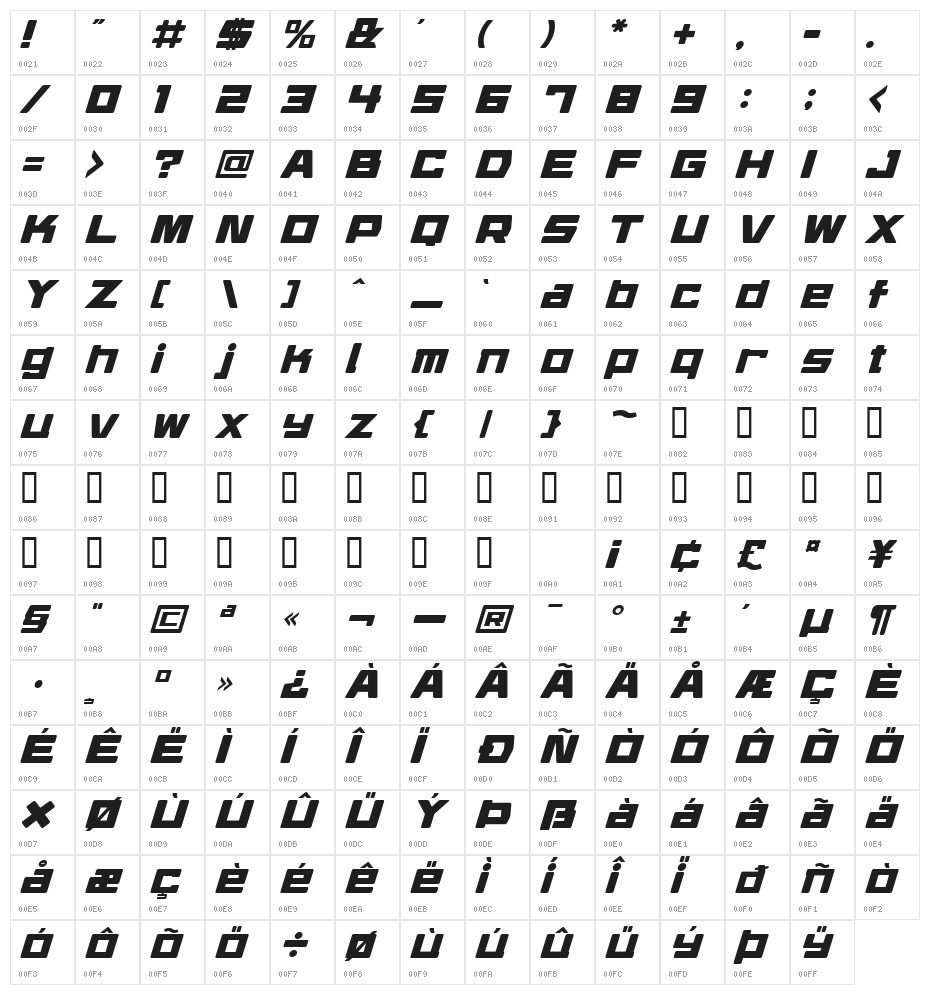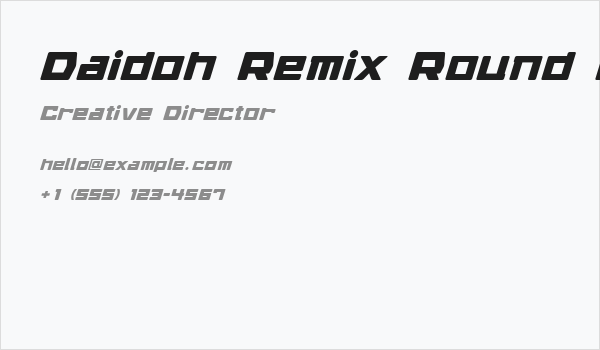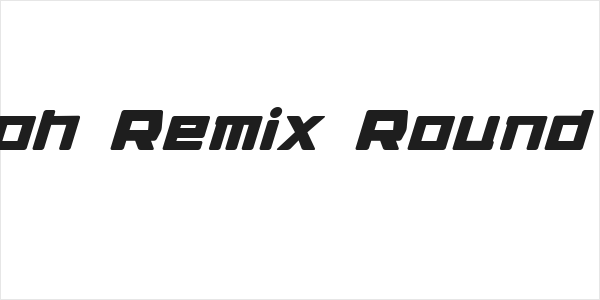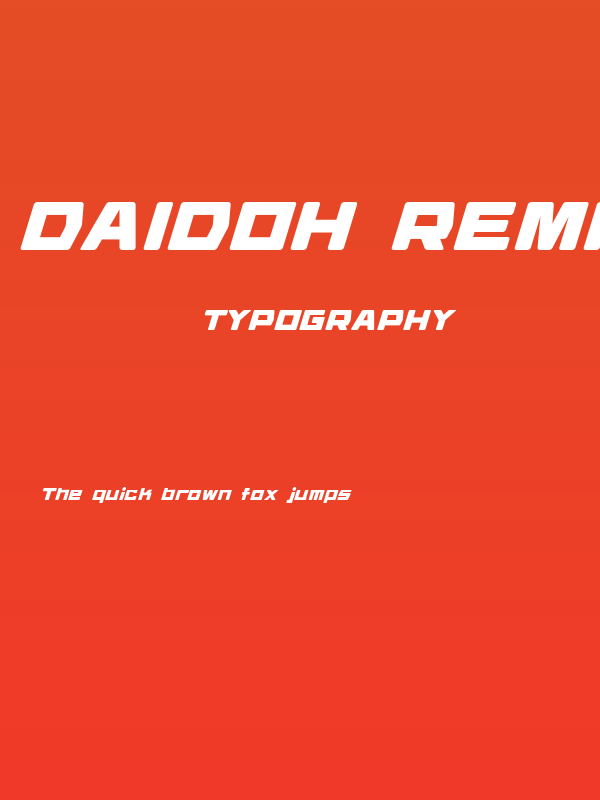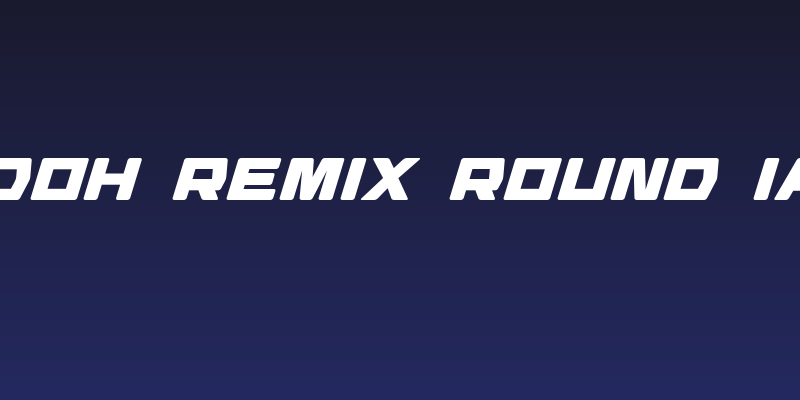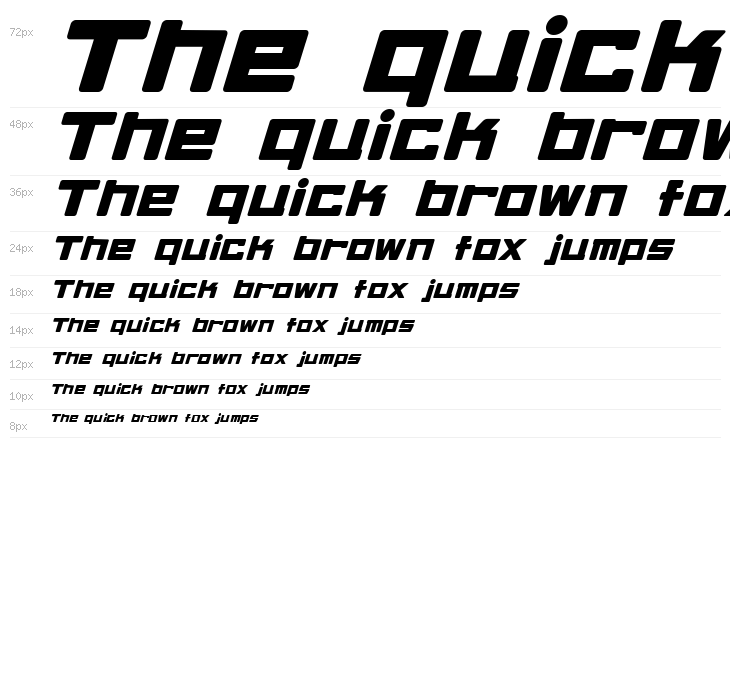
Daidoh Remix Round Ialic Font
Daidoh Remix Round Ialic Description
This font features a bold and dynamic style with a distinctly modern and futuristic appearance. The characters are slanted, giving an italicized look that adds a sense of motion and energy. The edges are rounded, contributing to a softer, more approachable feel despite its boldness. The uppercase and lowercase letters maintain a consistent style, with uniform stroke widths that provide a clean and cohesive look. The numerals and special characters are designed to match the overall aesthetic, ensuring versatility across different uses.
| Proposed Projects | Ideal for sports branding, tech-related projects, or any design requiring a modern and energetic typeface. |